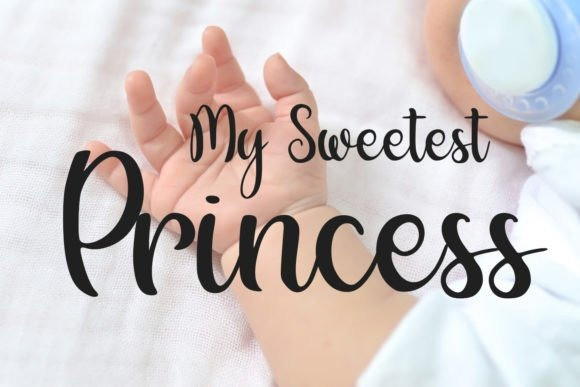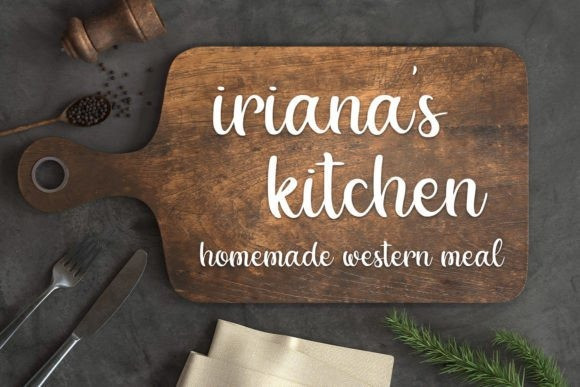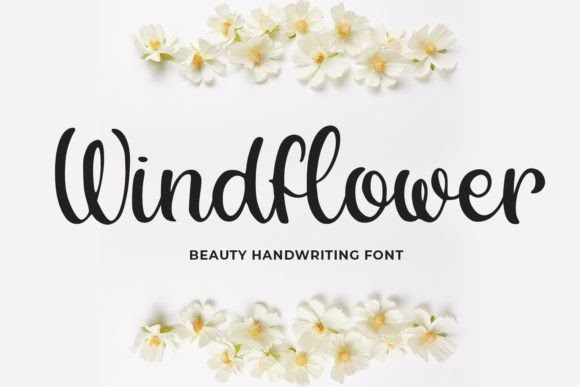
Windflower Script Font
Windflower Script Font is a beautiful and natural handwritten font. It is great for quotes, taglines, branding, t-shirt designs, tote bag designs, cards, banners, social media, and anything of craft project.